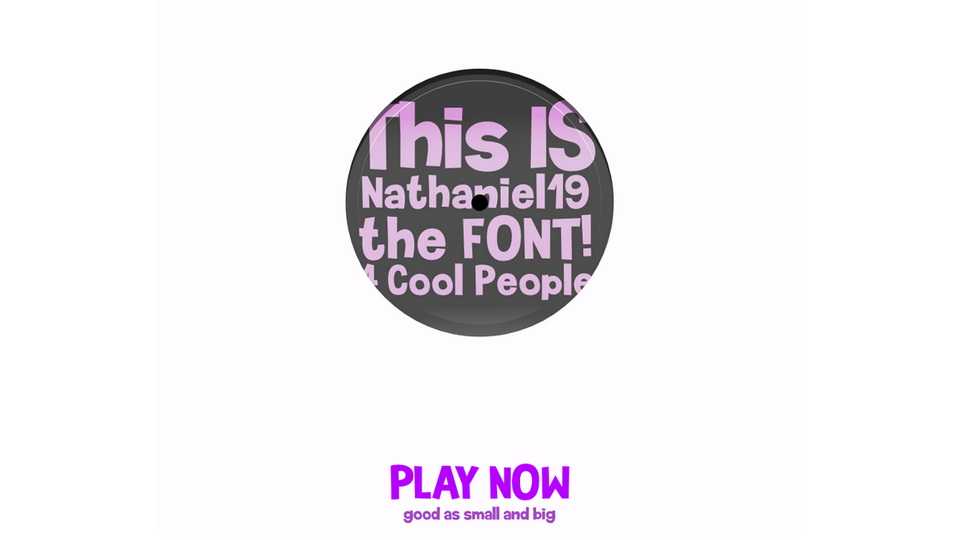
Download Nathaniel-19 font, a playful, bouncy and cute hand-drawn typeface charming and warm character. Nathaniel-19 is perfect for creating logos, greeting cards, posters, packaging, children books, cartoons and so much more.